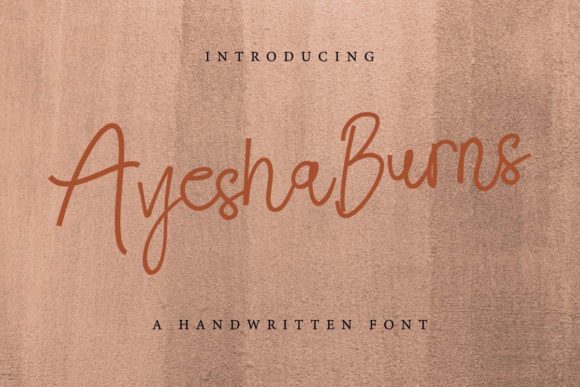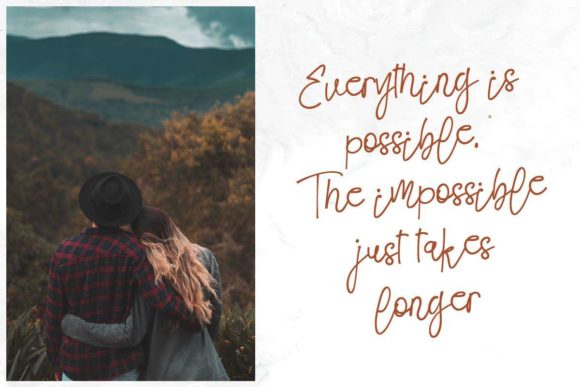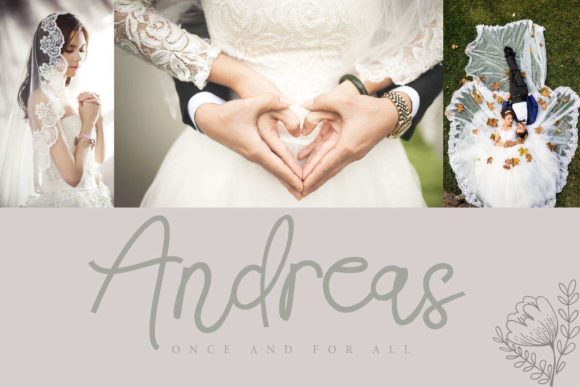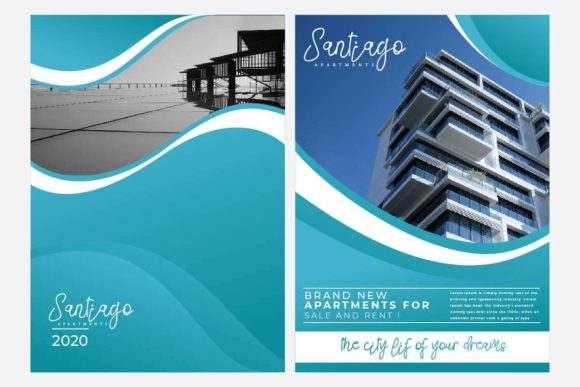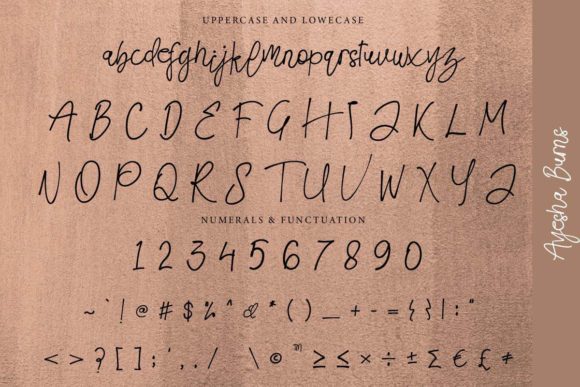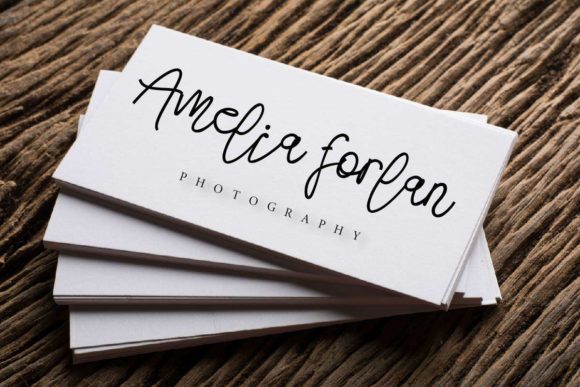
Ayesha Burns Font: The Ultimate Handwritten Font for Creative Standouts
Are you tired of using the same old fonts for your creative projects? Do you want to add a touch of fun, quirkiness, and authenticity to your designs? Look no further than the Ayesha Burns Font! This enchanting handwritten font is designed to turn any creative idea into a true standout, and we’re excited to dive into its features and benefits.
What is Ayesha Burns Font?
Ayesha Burns Font is a unique and charming handwritten font that embodies the spirit of fun, quirkiness, and authenticity. Its distinctive style is perfect for designers, crafters, and creatives who want to add a personal touch to their projects. Whether you’re working on a branding project, a craft tutorial, or a social media graphic, Ayesha Burns Font is sure to make your design pop.
Key Features of Ayesha Burns Font
- Handwritten style: Ayesha Burns Font boasts a genuine handwritten look that’s perfect for adding a personal touch to your designs.
- Unique character set: The font features a wide range of characters, including uppercase and lowercase letters, numbers, and punctuation marks.
- Quirky and fun: Ayesha Burns Font has a playful and whimsical feel that’s ideal for creative projects that require a bit of personality.
- Authentic feel: The font’s handmade style gives it an authentic feel that’s perfect for designers who want to create unique and eye-catching designs.
Who is Ayesha Burns Font for?
Ayesha Burns Font is perfect for a variety of creatives, including:
- Graphic designers: If you’re looking for a unique font to add to your design arsenal, Ayesha Burns Font is an excellent choice.
- Crafters: Whether you’re creating DIY tutorials or crafting patterns, Ayesha Burns Font is a great way to add a personal touch to your projects.
- Social media enthusiasts: If you want to create eye-catching social media graphics that stand out from the crowd, Ayesha Burns Font is a great option.
- Small business owners: If you’re looking for a way to add a personal touch to your branding, Ayesha Burns Font is a great choice.
- Pair it with other fonts: Ayesha Burns Font pairs well with other fonts, so feel free to experiment with different combinations.
- Use it for headings and titles: The font’s bold and playful style makes it perfect for headings and titles.
Benefits of Using Ayesha Burns Font
So why should you choose Ayesha Burns Font for your creative projects? Here are just a few benefits:
- Adds a personal touch: Ayesha Burns Font’s handmade style gives your designs a personal touch that’s hard to replicate with other fonts.
- Stand out from the crowd: The font’s unique style ensures that your designs will stand out from the crowd.
- Perfect for creative projects: Ayesha Burns Font is designed specifically for creative projects, making it a great choice for designers, crafters, and creatives.
In conclusion, Ayesha Burns Font is a unique and enchanting handwritten font that’s perfect for designers, crafters, and creatives who want to add a touch of fun, quirkiness, and authenticity to their projects. With its distinctive style, wide range of characters, and authentic feel, Ayesha Burns Font is sure to turn any creative idea into a true standout. So why wait? Give Ayesha Burns Font a try today and see the difference it can make in your designs!